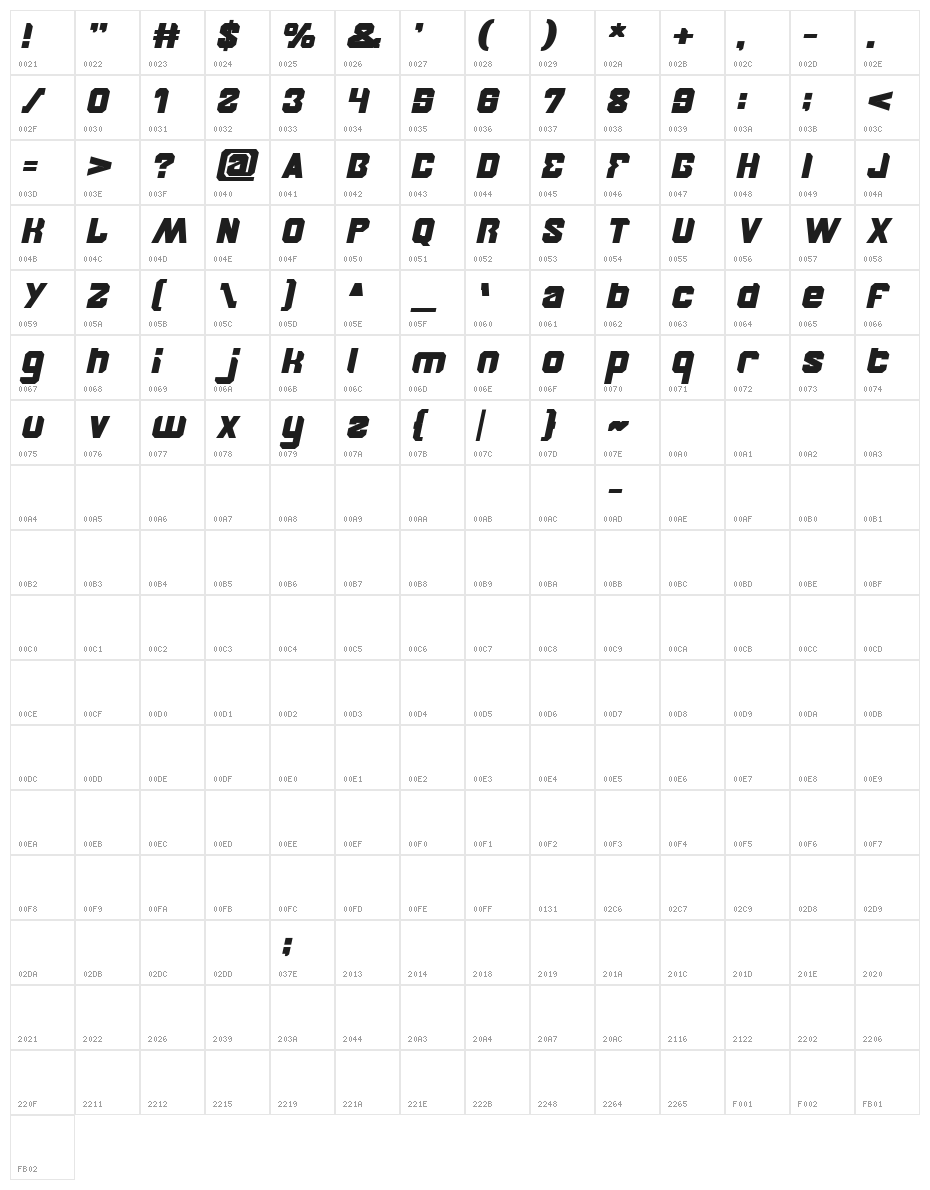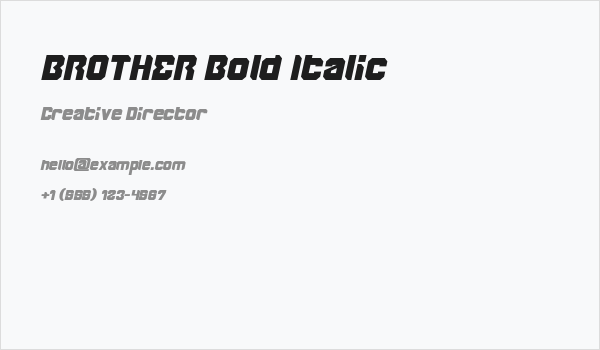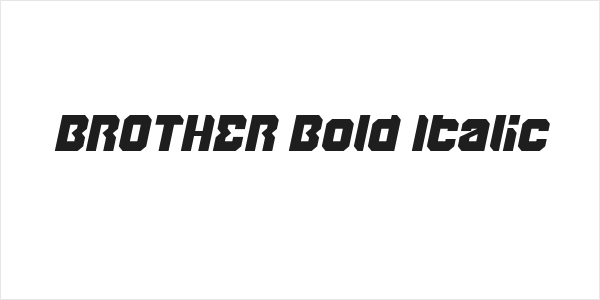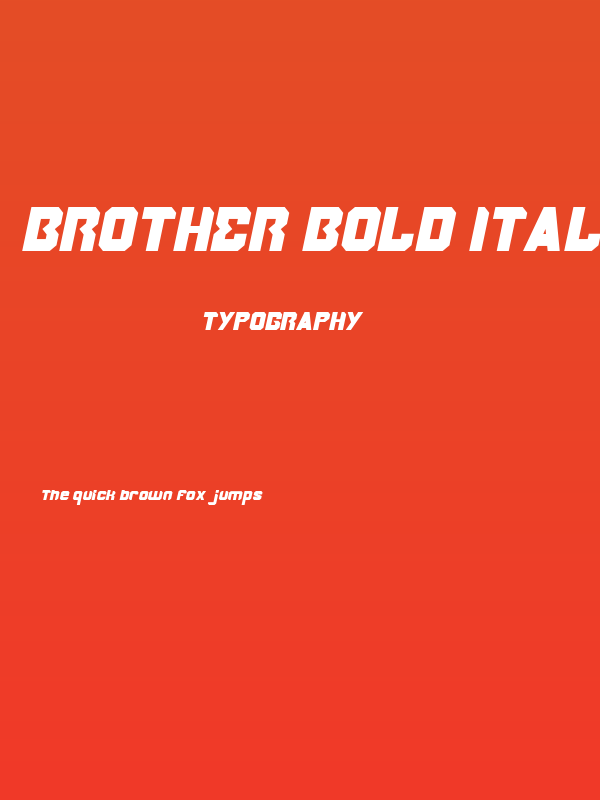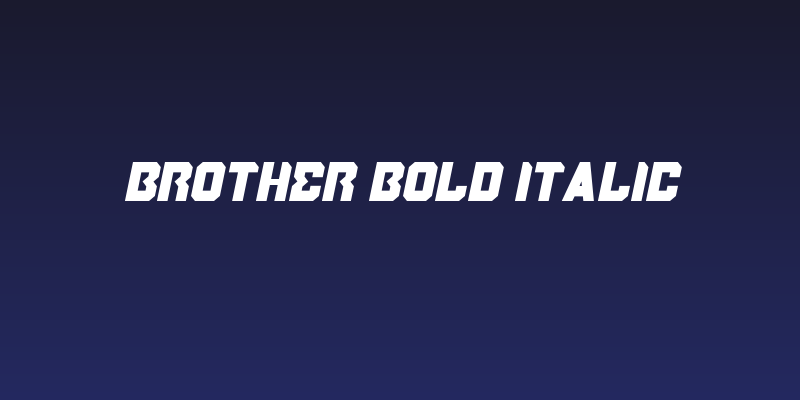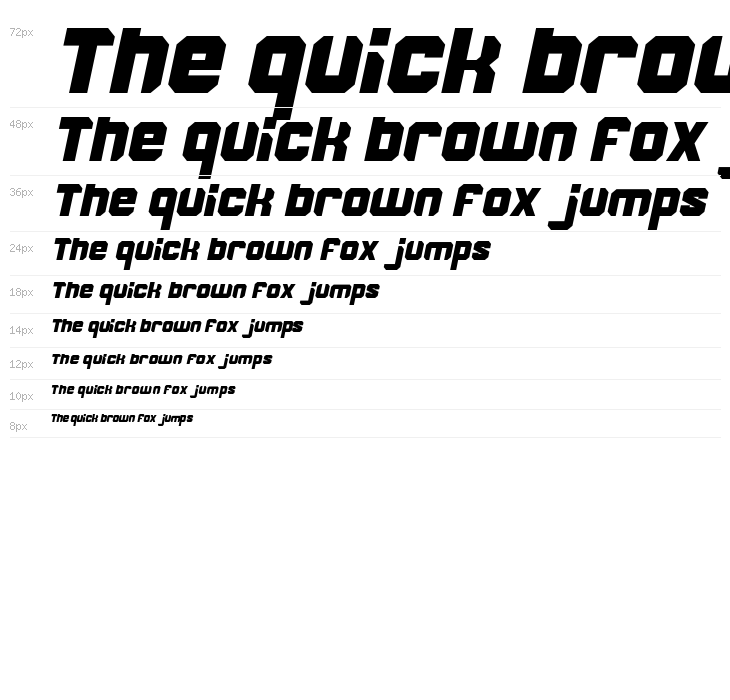
BROTHER Bold Italic Font
BROTHER Bold Italic Description
This bold and italic typeface features a strong, angular design with a futuristic and dynamic appearance. The letters are sharply cut with a forward-leaning slant, giving a sense of motion and energy. The uppercase and lowercase characters maintain a consistent style, with thick strokes and minimal contrast, emphasizing the boldness of the font. The numerals and special characters are designed to match the robust and edgy aesthetic, making it suitable for impactful and attention-grabbing designs.
| Proposed Projects | Ideal for sports branding, video game titles, action movie posters, and dynamic logo designs. |